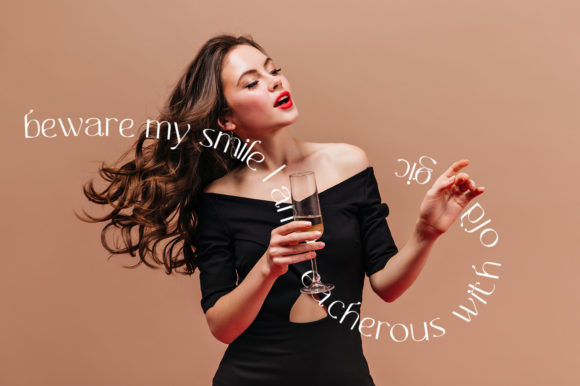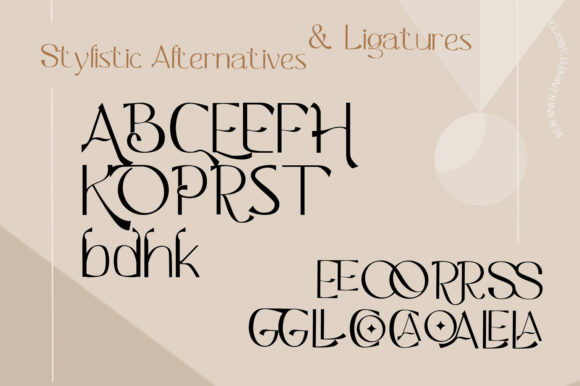
Peach Font
Peach is a clean, elegant and thin lettered sans serif font. It has a classy, elegant and modern look that can be used for logos, branding, invitations, stationery, wedding designs, social media posts, and much more!